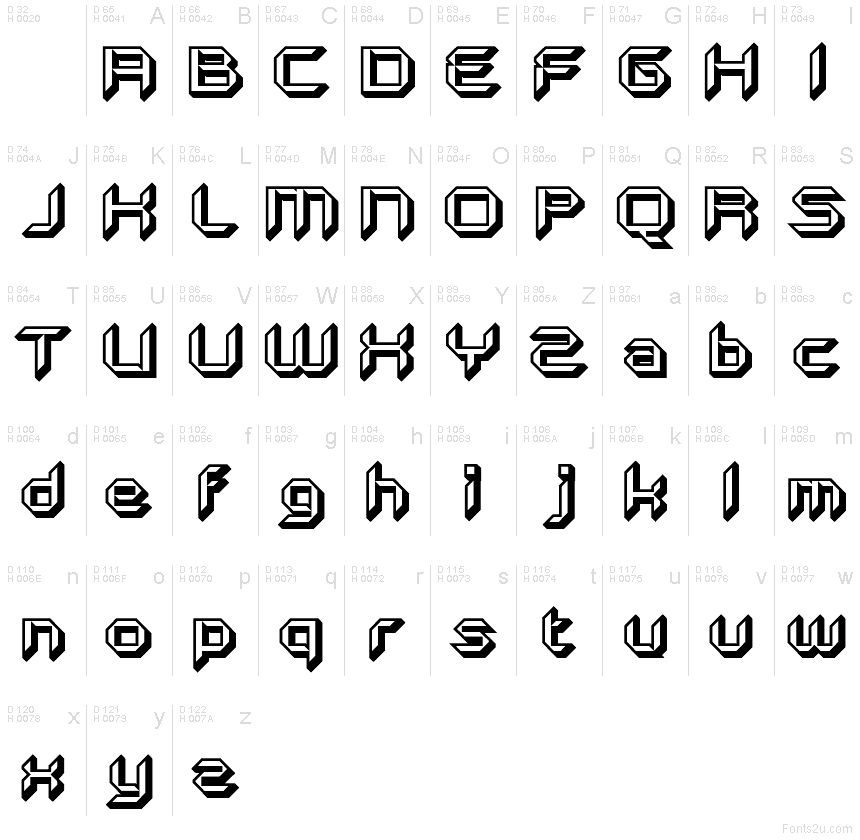
Hecolle-ExtrudeRight Demo
Hecolle ExtrudeRight font by Craft Supply Co. delivers a unique blackletter-inspired appearance with angular geometric shapes which can be used to create a futuristic appeal in graphic design projects. The free gothic and modern style reflects sharp contrasts while the expanded letters make it ideal for any display project.